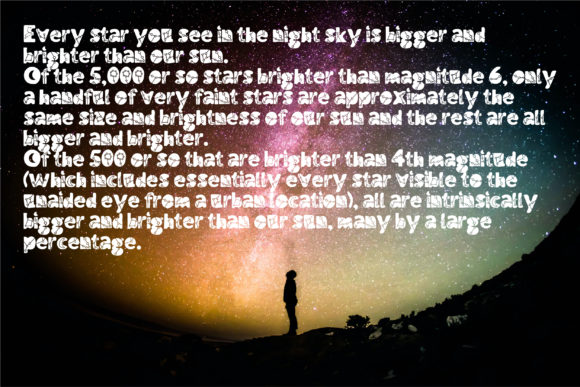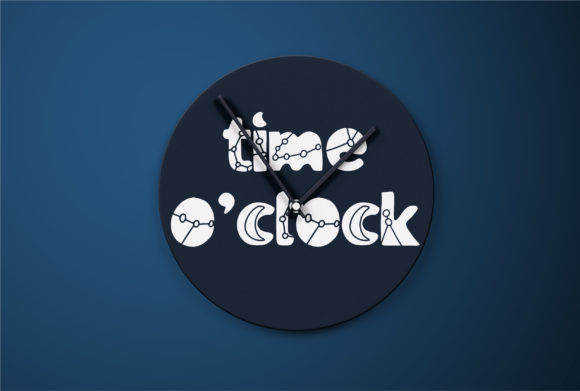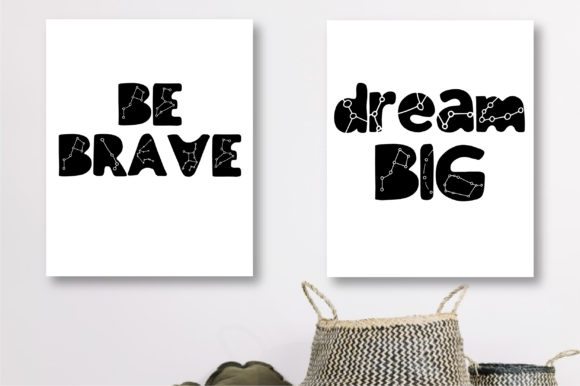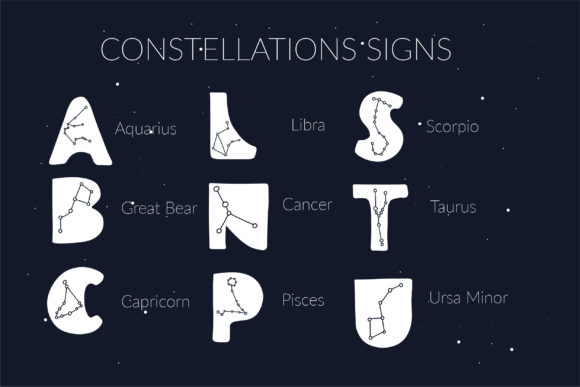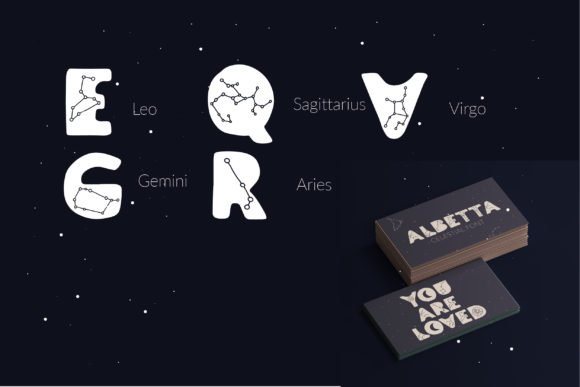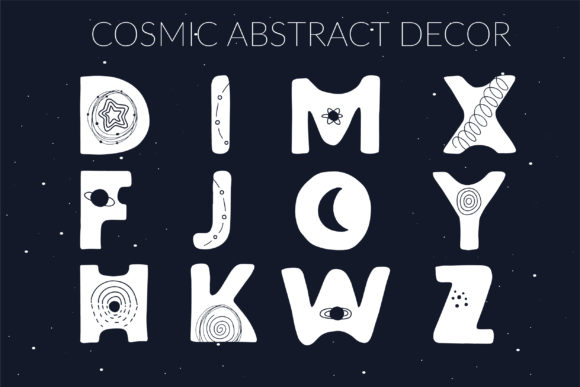
The Albetta Font: A Bold and Unique Decorative Font to Elevate Your Designs
An Honest Review of Albetta Font
What I Love About Albetta Font
• ✨ Unique and eye-catching design: Albetta font is unlike any other font I’ve come across. Its bold and decorative style makes it perfect for adding a touch of personality to your designs.
• ✅ Highly versatile: Whether you’re working on a logo, a poster, or a social media graphic, Albetta font can be used in a variety of contexts.
• 🎨 Great for creative projects: If you’re a crafty person or a creative hobbyist, Albetta font is perfect for adding a personal touch to your projects.
While I absolutely love Albetta font, there are a few things to keep in mind: 🤔
• ⚠️ Legibility at small sizes: Albetta font can be a bit tricky to read at small sizes, so make sure to use it at a large enough size to ensure legibility.
• ⚠️ Limited use cases for body text: Due to its bold and decorative nature, Albetta font is best used for headlines or titles, rather than body text.
The Backstory of Albetta Font
Albetta font was designed with the intention of creating a bold and unique decorative font that would add a touch of personality to any design. The designer wanted to create a font that would be perfect for creative projects, such as logos, posters, and social media graphics. With its bold and eye-catching design, Albetta font is sure to make your designs stand out.
Font Name Albetta Font
Author LetsArtShop
Q: What type of projects is Albetta font best suited for?
A: Albetta font is perfect for creative projects, such as logos, posters, social media graphics, and more.
Q: Can I use Albetta font for body text?
A: While Albetta font can be used for body text, it’s best suited for headlines or titles due to its bold and decorative nature.
Q: Is Albetta font available in different styles?
A: Yes, Albetta font comes in a variety of styles, including regular, bold, and italic.